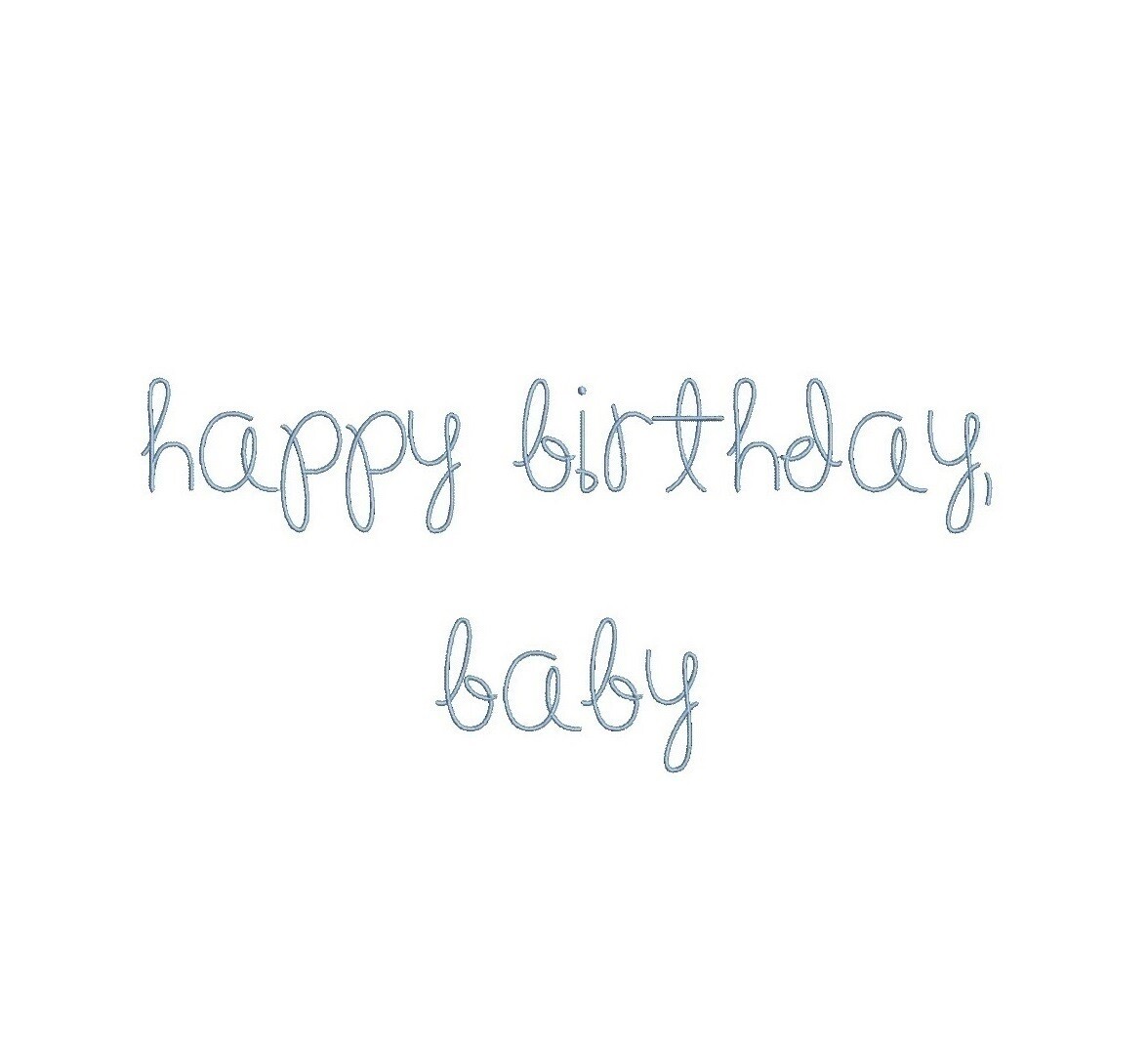
Celebrate joyous occasions with Happy Birthday, Baby Regular ESA font. This delightful and playful typeface brings cheer to your designs. Crafted with meticulous attention to detail, this premium font guarantees a seamless and enjoyable design experience. Compatible with Wilcom Studio e4.5.6 and Hatch 3 versions and up, it ensures smooth embroidery creation. Whether it's birthday cards, party invitations, or festive decorations, Happy Birthday, Baby Regular ESA font adds a touch of happiness to any endeavor. Embrace its celebratory charm and create designs that spread smiles. Don't miss out; make every birthday special with this delightful gem. Get it now and spark joy!